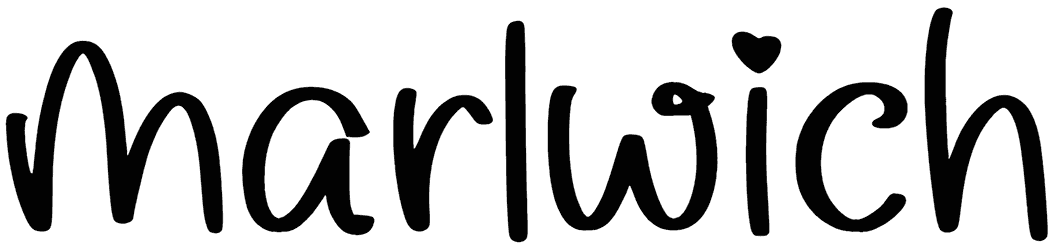
Marlwich Font
You know that if you are going to make a cartoonish design or are motivated by fun and cool vibes, this font is a true pick for making your design leap off the page! Marlwich, as a script font with friendly and cozy letters, appears to engage any audience to prefer it.
This love font feeds you with a complete set of the alphabet to make you need nothing in inventing. Start now and bring amazing feedback to blow your viewers’ minds.